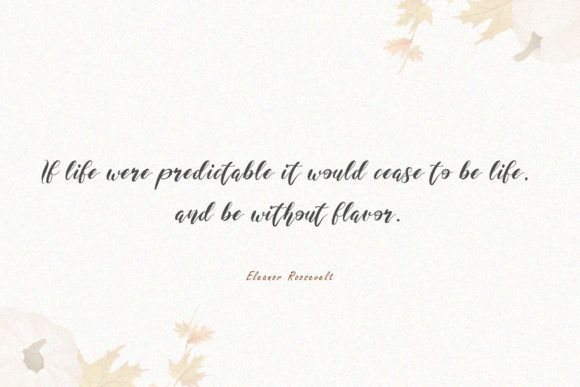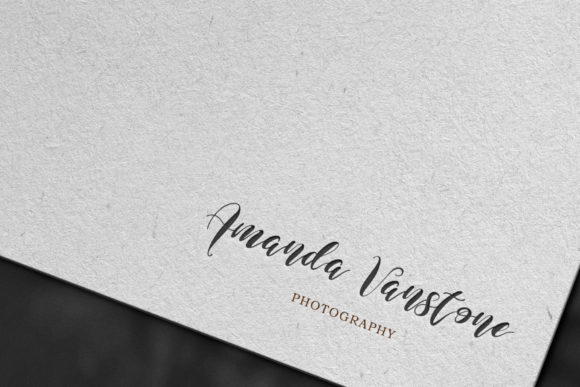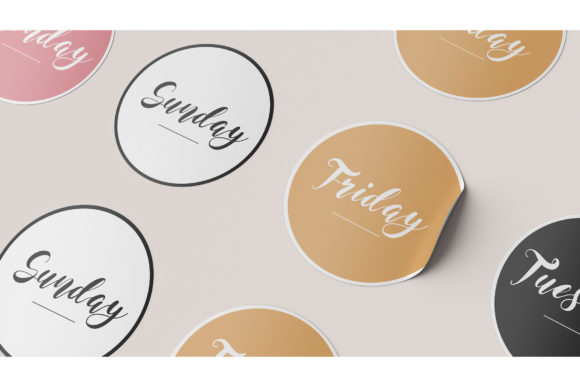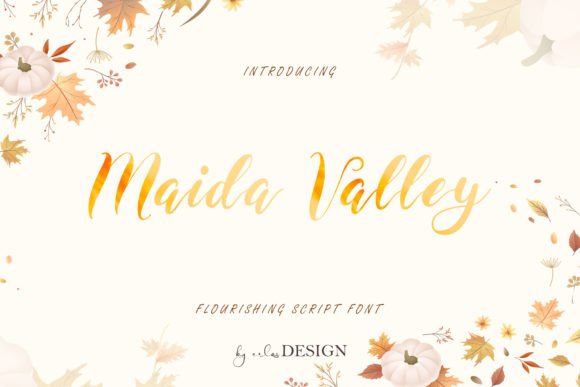
Introduction to Maida Valley Font
Maida Valley is a beautiful and flowing handwritten font.
It is PUA encoded which means you can access all of the glyphs and swashes with ease Maida Valley can be added to a variety of designs, both formal and informal, such as wedding invitations, birthday cards, logos and so much more.